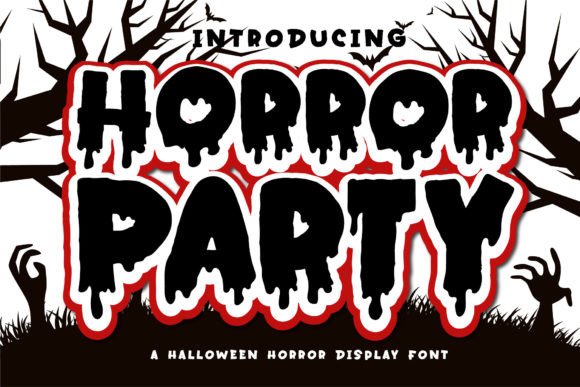
Unleash the Terror: Introducing the Horror Party Font
As the witching hour approaches, and Halloween draws near, the quest for the perfect font to capture the essence of the spooky season begins. Look no further than the Horror Party Font, a spine-chilling display font designed to send shivers down your spine. With a ghoulish twist on traditional lettering, this font adds a touch of eerie enchantment to your designs, making it perfect for t-shirt designs, party invitations, and all things spooky.
The Inspiration Behind Horror Party Font
The Horror Party Font is the brainchild of creative minds who sought to craft a typeface that embodies the thrill of the macabre. Inspired by the darker corners of the imagination, this font is a masterful blend of creepy and kooky, making it an indispensable tool for designers looking to create hauntingly beautiful projects.
The font’s design is rooted in the traditions of horror and the supernatural, drawing inspiration from classic horror movies, haunted mansions, and creepy carnivals. Each letter is carefully crafted to evoke a sense of unease and foreboding, making it the perfect choice for projects that require a touch of the macabre.
Key Features of Horror Party Font
- Unique Lettering Style: The Horror Party Font boasts a unique lettering style that sets it apart from more traditional fonts. Its ghoulish twist on classic lettering makes it perfect for adding a touch of horror to your designs.
- Spine-Chilling Display Font: Designed specifically as a display font, Horror Party is perfect for headlines, titles, and short phrases. Its bold and eye-catching design ensures that your text will stand out.
- Perfect for Spooky Projects: Whether you’re designing t-shirt graphics, party invitations, or spooky posters, Horror Party Font is the perfect choice. Its creepy aesthetic is sure to captivate your audience and leave a lasting impression.
- Eerie Enchantment: The font’s eerie enchantment is sure to add a touch of magic to your designs. Perfect for projects that require a touch of whimsy and horror.
Uses of Horror Party Font
The Horror Party Font is incredibly versatile and can be used in a variety of projects, including:
- T-Shirt Designs: Add a touch of horror to your t-shirt designs with the Horror Party Font. Perfect for Halloween-themed tees or horror movie-inspired apparel.
- Party Invitations: Create spooky and inviting party invitations with the Horror Party Font. Perfect for Halloween parties, horror movie nights, or themed events.
- Posters and Flyers: Use the Horror Party Font to create eye-catching posters and flyers for horror-themed events, haunted houses, or creepy carnivals.
- Social Media Graphics: Add a touch of horror to your social media graphics with the Horror Party Font. Perfect for creating spooky and engaging content.
Tips for Using Horror Party Font
To get the most out of the Horror Party Font, follow these tips:
- Use it Sparingly: Due to its bold and eye-catching design, it’s best to use the Horror Party Font sparingly. Use it for headlines or titles, and pair it with a simpler font for body text.
- Pair it with Complementary Fonts: Experiment with pairing the Horror Party Font with complementary fonts to create visually appealing combinations.
- Experiment with Colors: Don’t be afraid to experiment with different colors to find the perfect combination that complements your design.
In conclusion, the Horror Party Font is a must-have for designers looking to add a touch of horror to their projects. With its unique lettering style, spine-chilling display font, and eerie enchantment, this font is perfect for a variety of spooky projects. Whether you’re designing t-shirt graphics, party invitations, or posters, the Horror Party Font is sure to make a haunting impression.
So, unleash your dark side and let the Horror Party Font make a haunting impression on your audience. Download it today and get ready to create some spooky and unforgettable designs!
- What is the Horror Party Font?: The Horror Party Font is a spine-chilling display font designed to send shivers down your spine. With a ghoulish twist on traditional lettering, this font adds a touch of eerie enchantment to your designs.
- What is the Horror Party Font used for?: The Horror Party Font is perfect for t-shirt designs, party invitations, posters, and all things spooky.